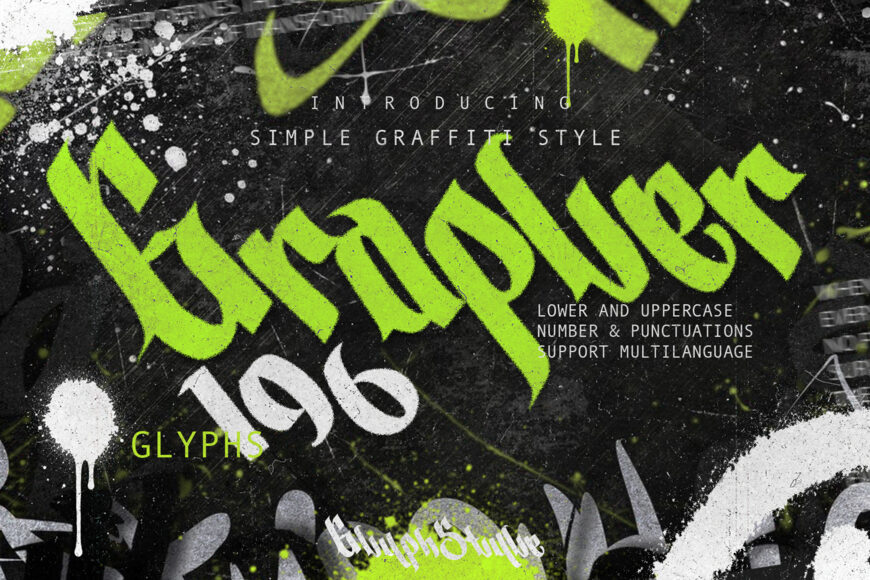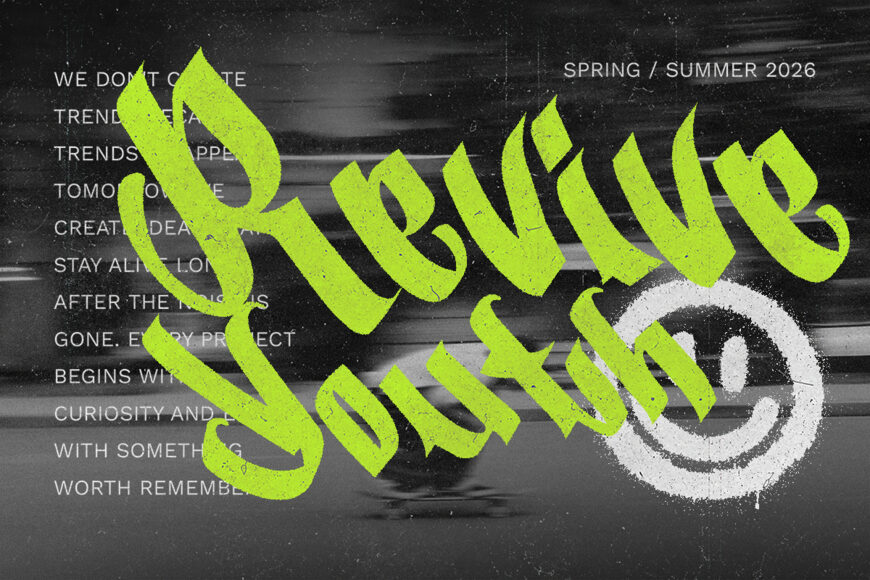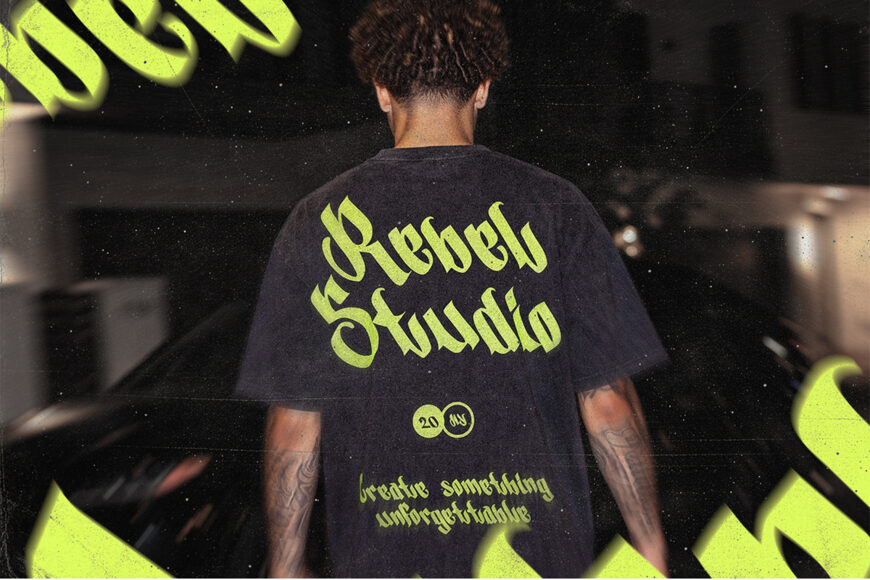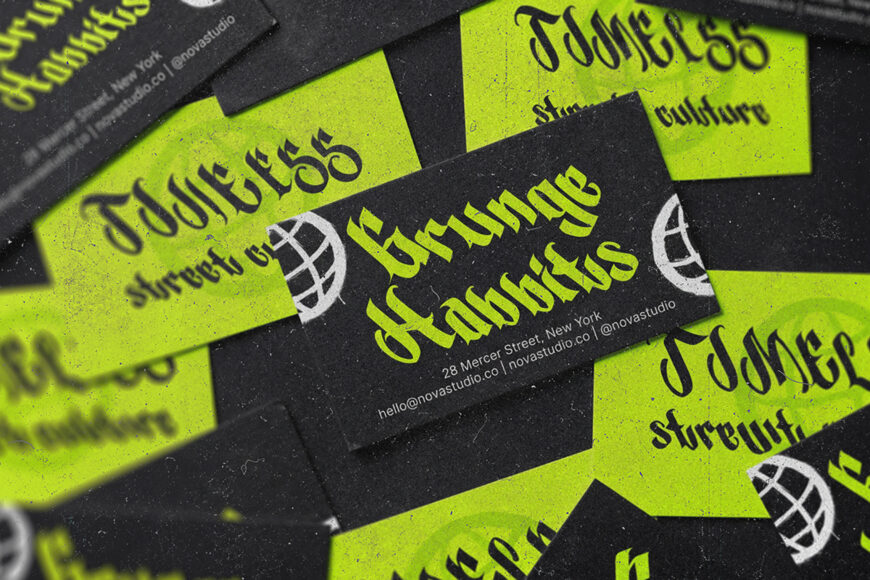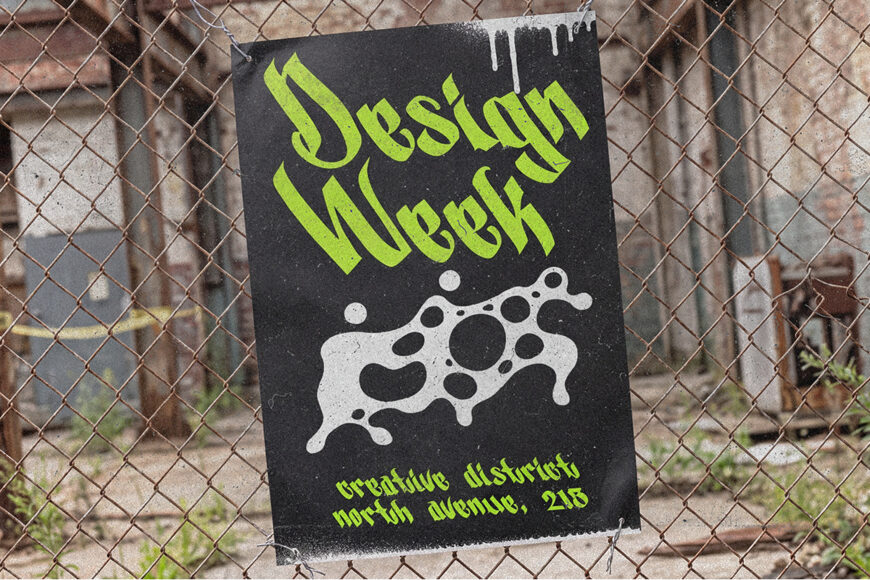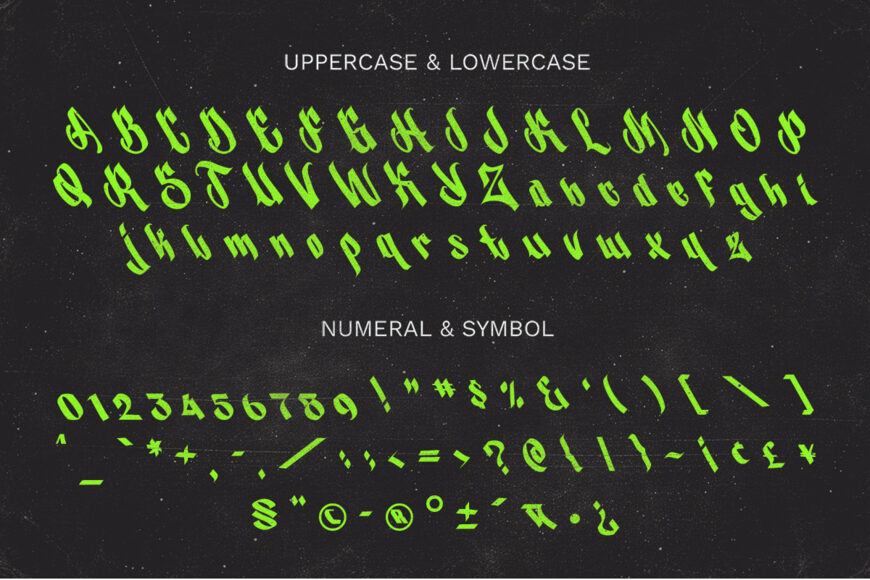
Grapler is simple grafitti font. Striking fusion of traditional blackletter calligraphy and raw street graffiti aesthetics. Designed with an aggressive, high-energy attitude, it perfectly captures the rebellious spirit of underground youth culture, skate scenes, and modern streetwear.